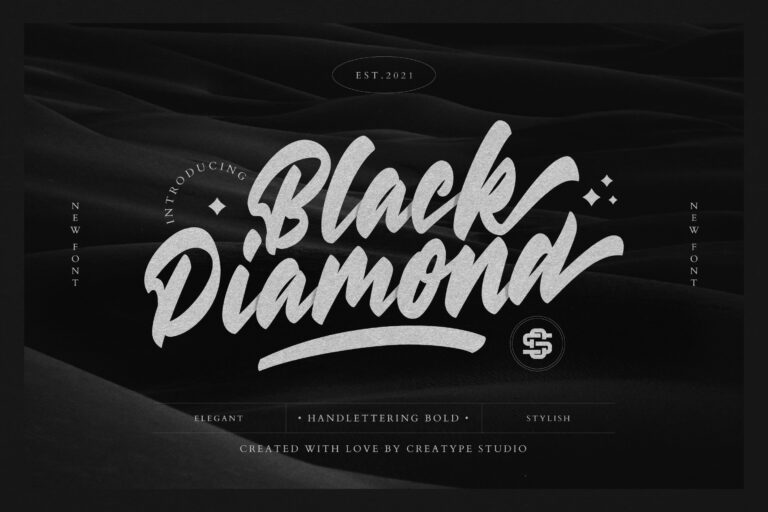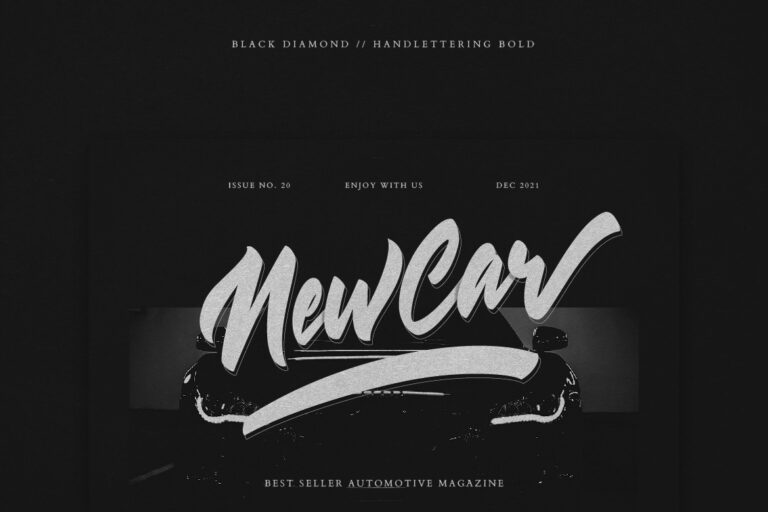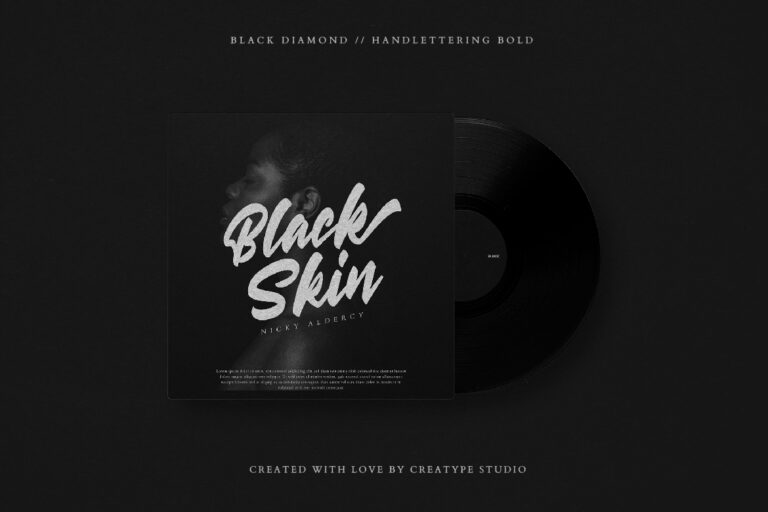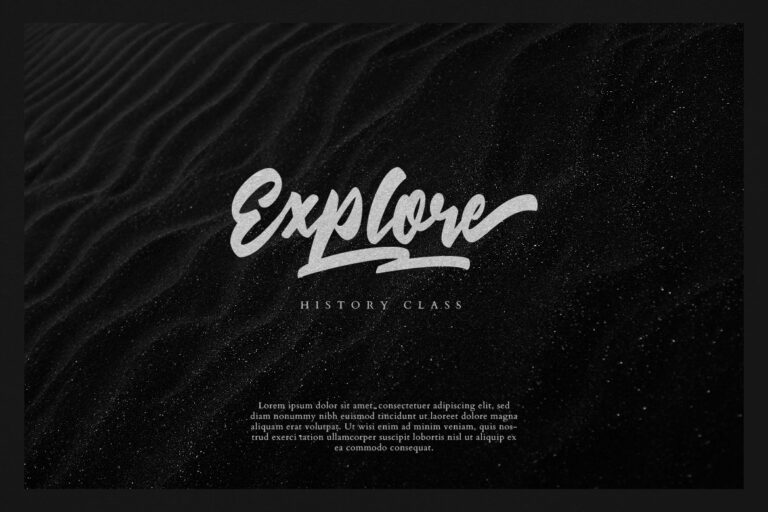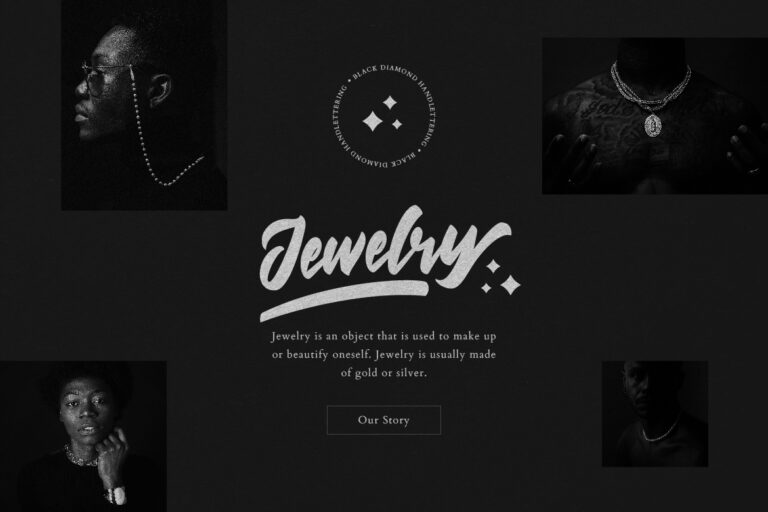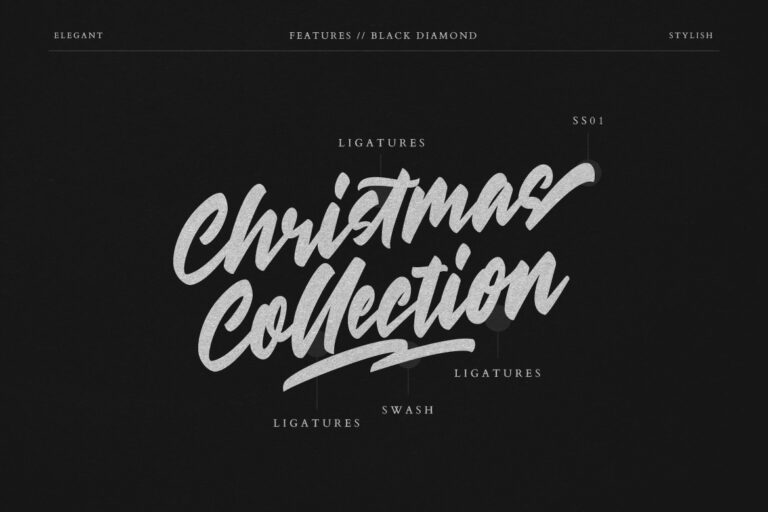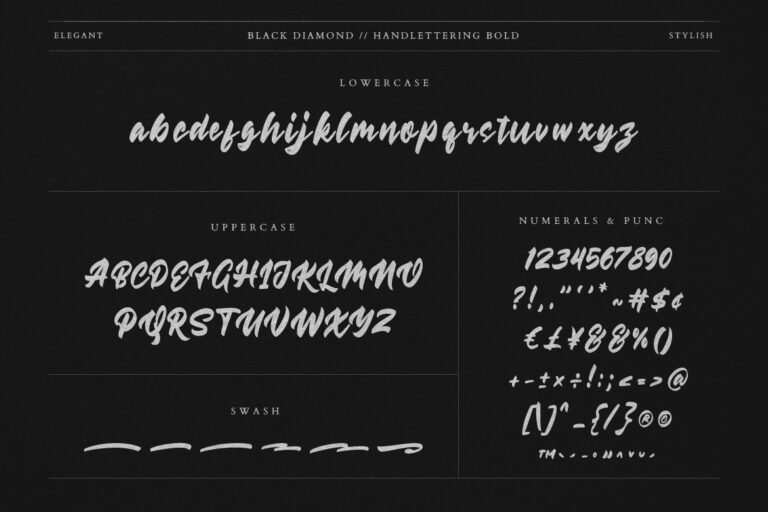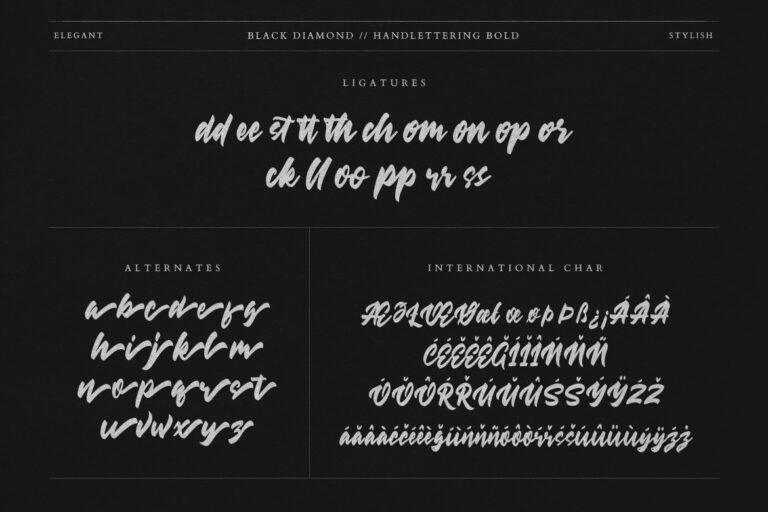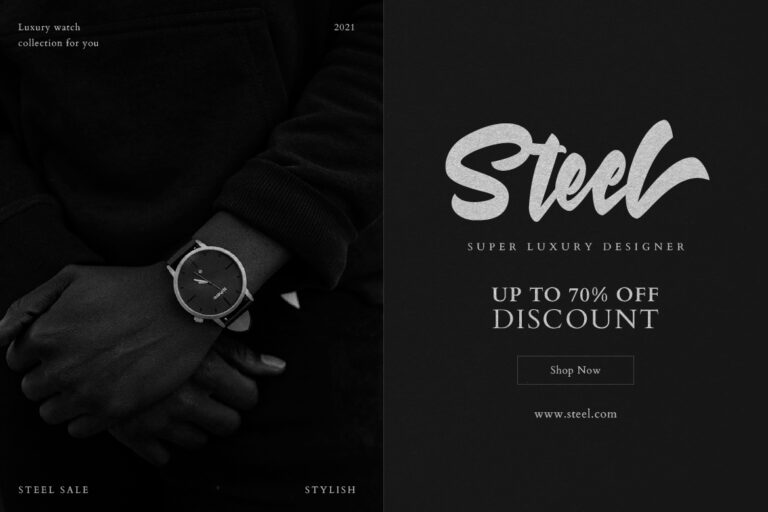
Black Diamond Handlettering Bold is a bold, handwritten font expertly crafted to make this. Black Diamond typeface look so bold, stylish, elegant and of course a classy modern look with the added swash in it.
Black Diamond is perfect for branding projects, logo, wedding designs, social media posts, advertisements, product packaging, product designs, label, photography, watermark, invitation, stationery and any projects that need handwriting taste.
Black Diamond Handlettering Bold